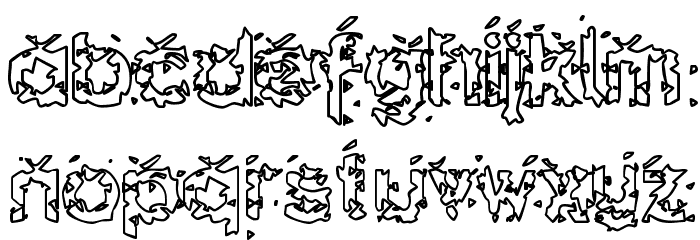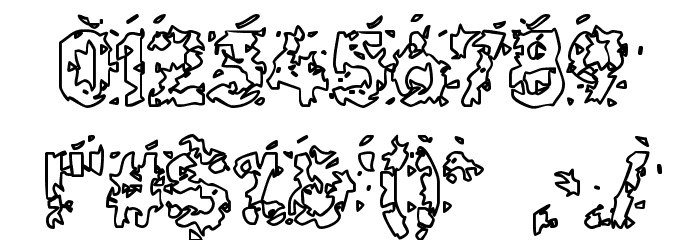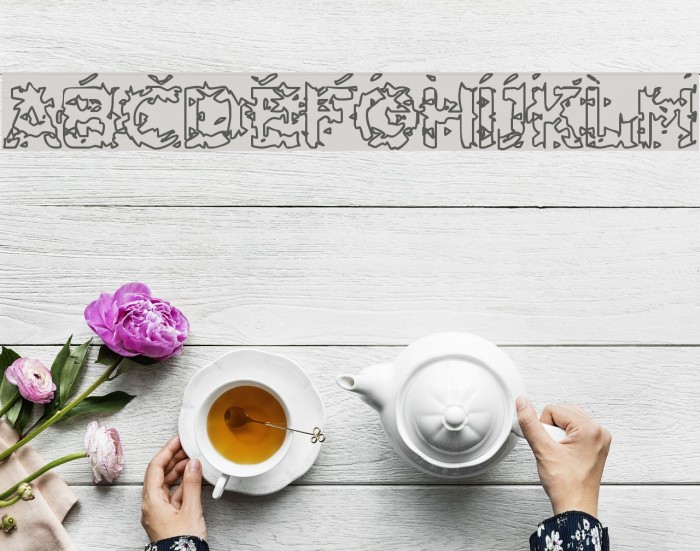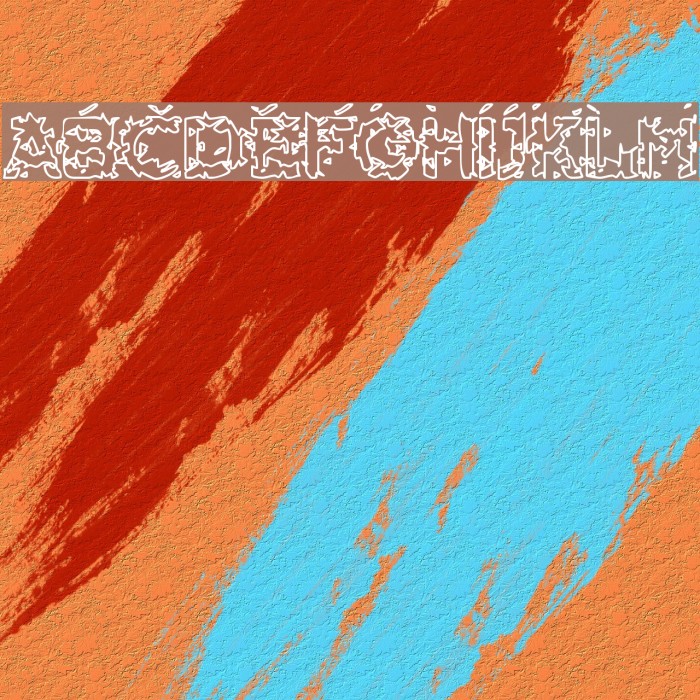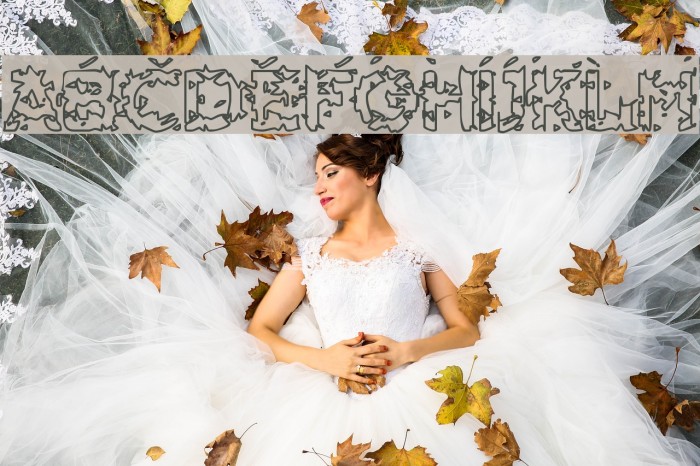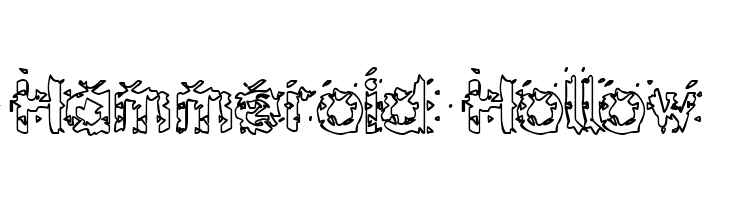
Hammeroid Hollow Font
This font features a bold, hollow design with a rugged, distressed appearance. The characters are outlined with a jagged, irregular edge, giving them a dynamic and edgy look. The uppercase and lowercase letters maintain a consistent style, with angular cuts and sharp points that create a sense of movement and energy. Numbers and special characters follow the same aesthetic, ensuring a cohesive look across all text. This font's unique style makes it stand out, offering a visually striking option for creative projects.
A bold, hollow font with a rugged, distressed outline and sharp, angular edges.